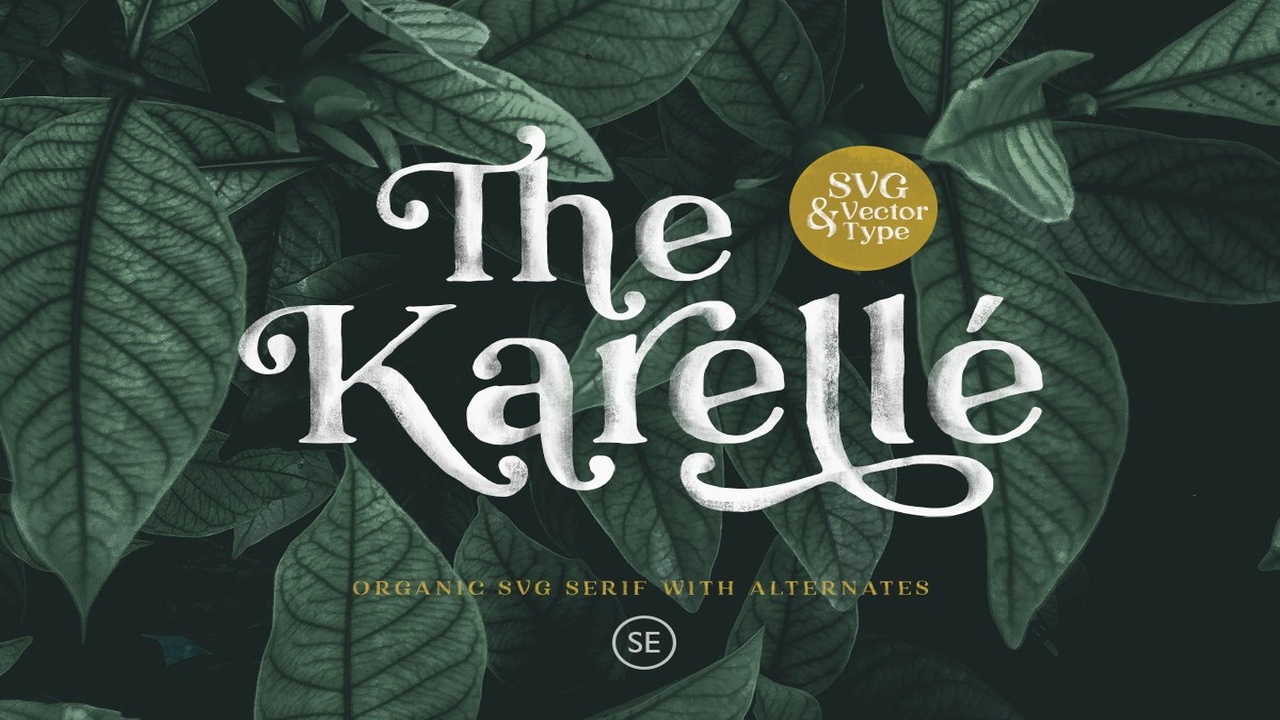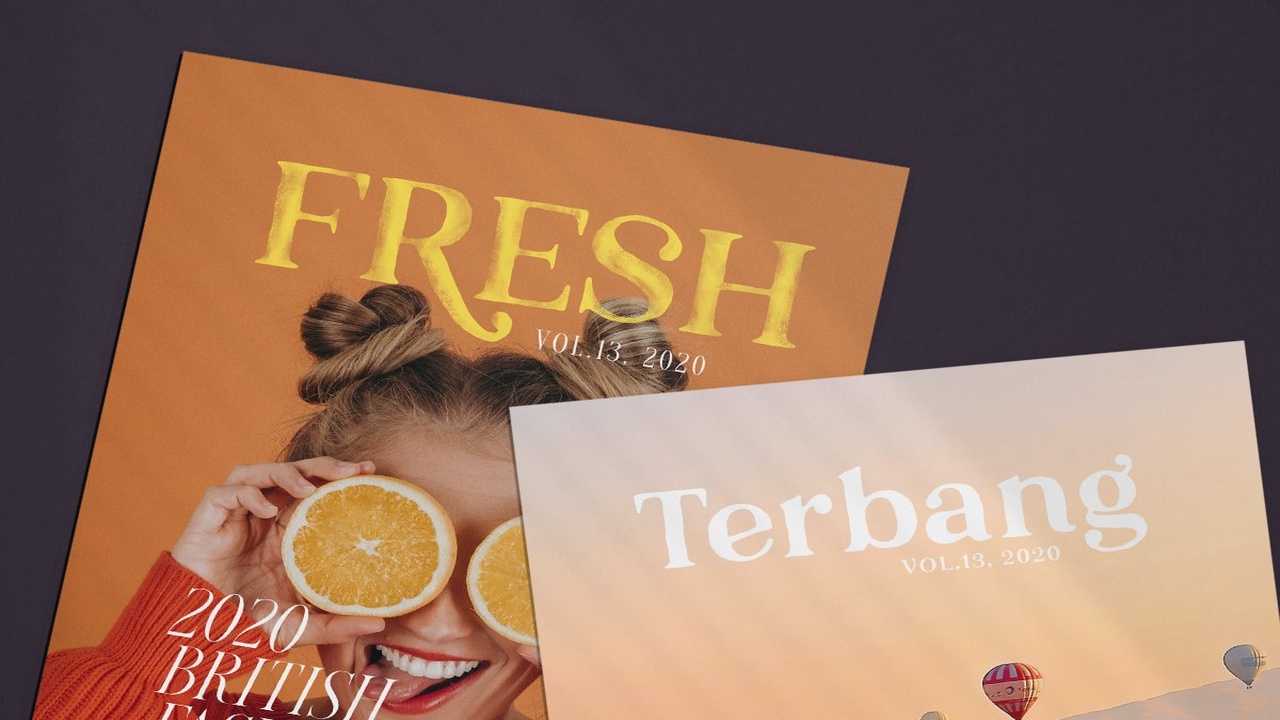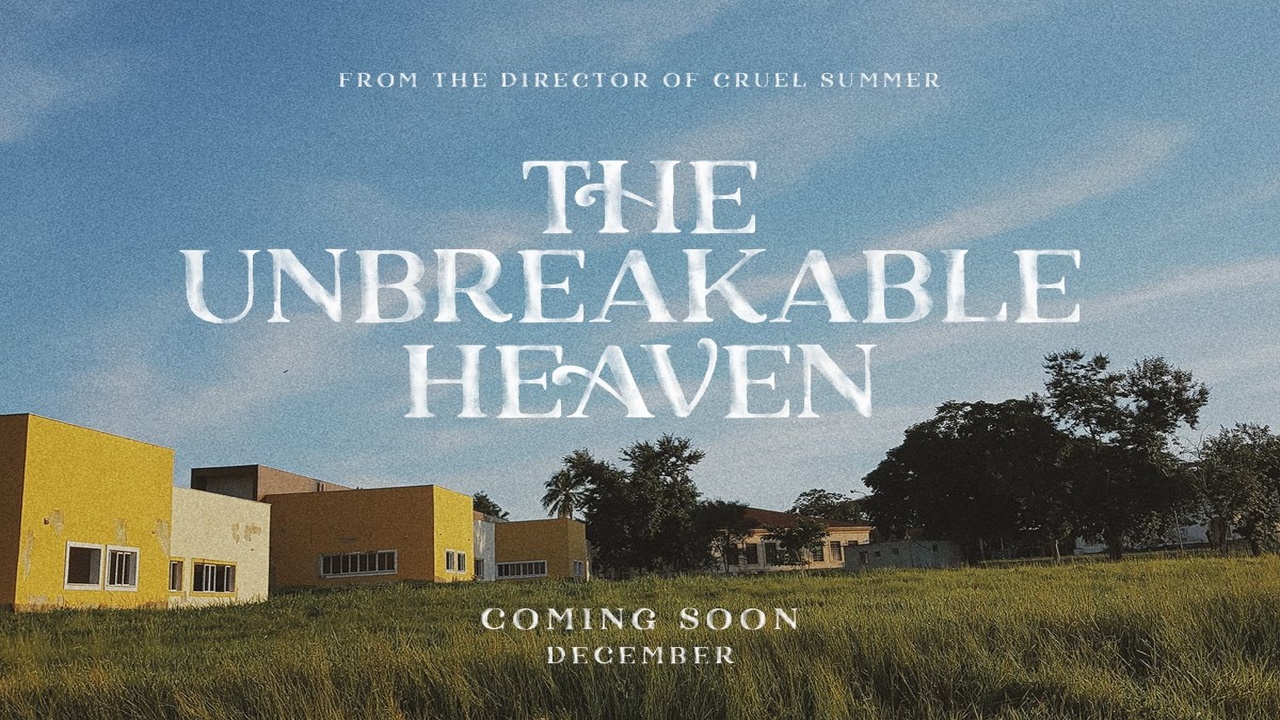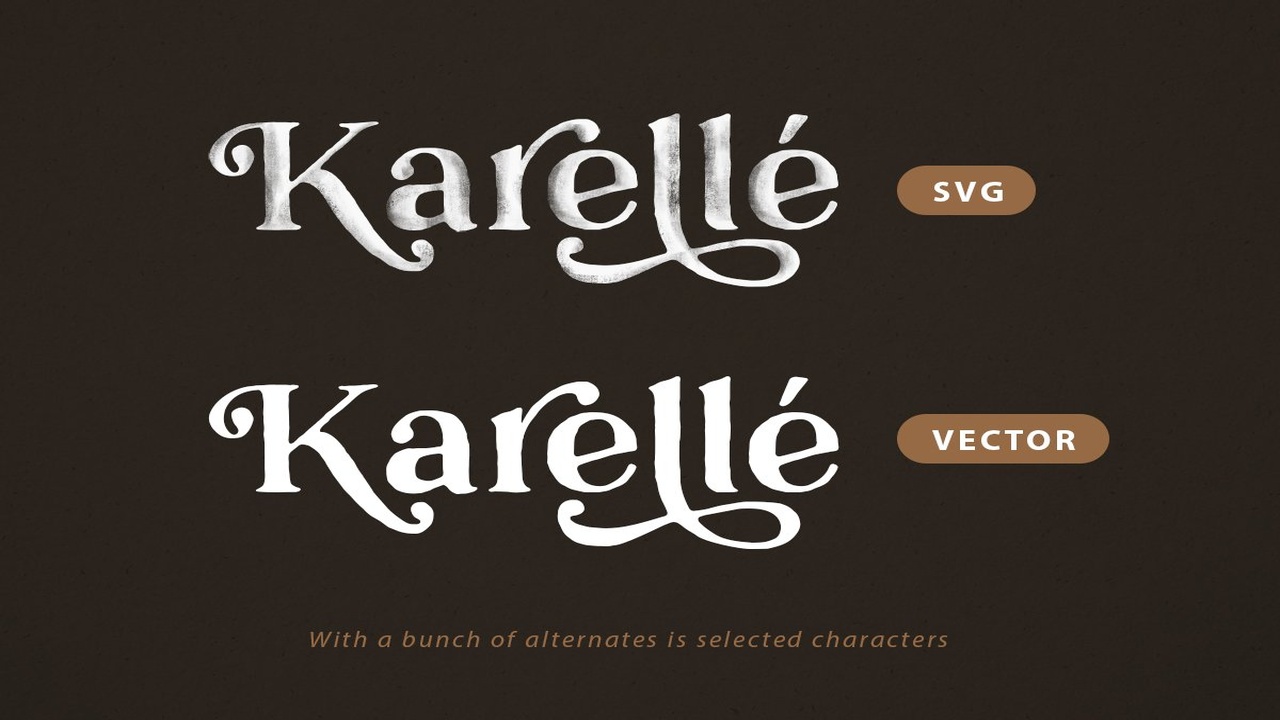
About the Karelle SVG An Organic Serif Font
Introducing, Karelle SVG, an organic serif with alternates!Karelle is SVG Font with natural feels, Comes with a new format of fonts (SVG) and also with a regular one (OTF), This unique font also included a bunch of alternates, Number, symbol, and another punctuation also included in this fonts, Support multilingual and already PUA encoded! Let this font make your project even more raw and natural!What is one the zip:Karelle SVGKarelle RegularInstructionNOTE : This font will give maximal performance at Photoshop CC 18